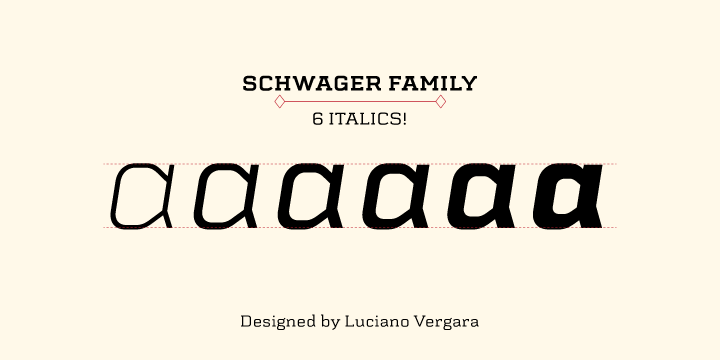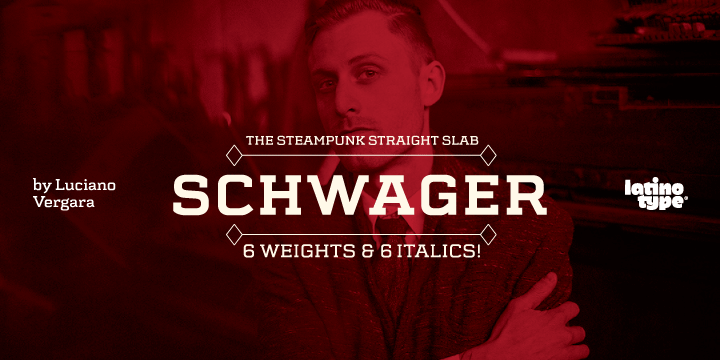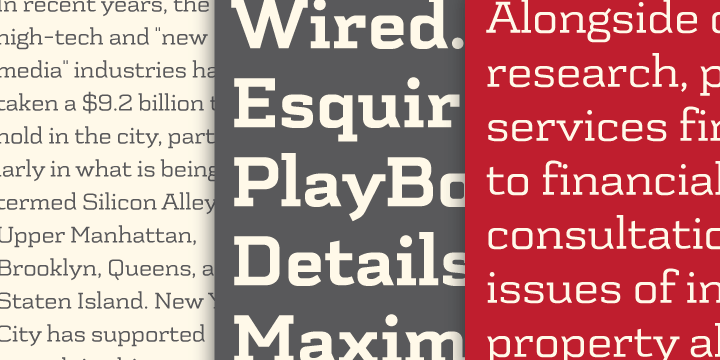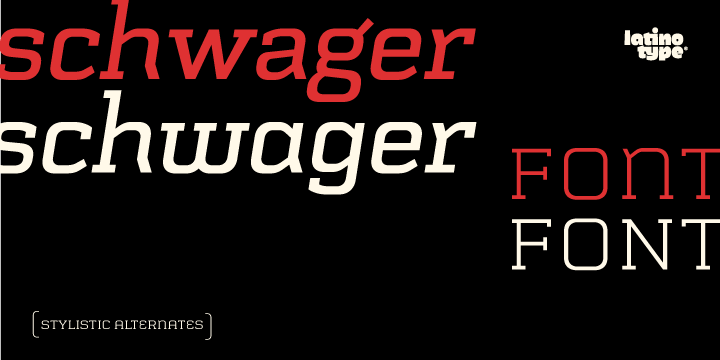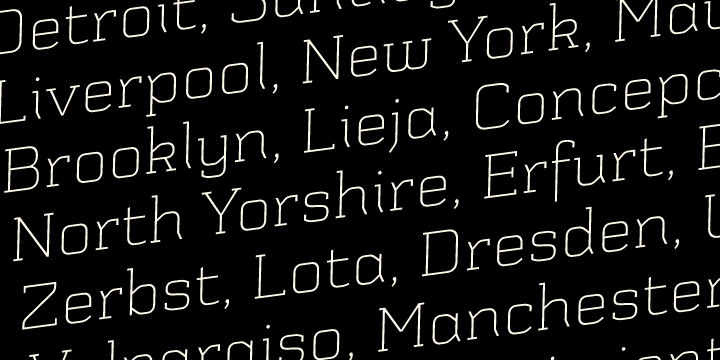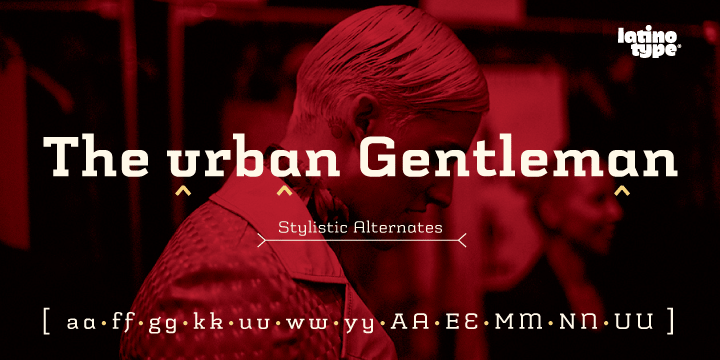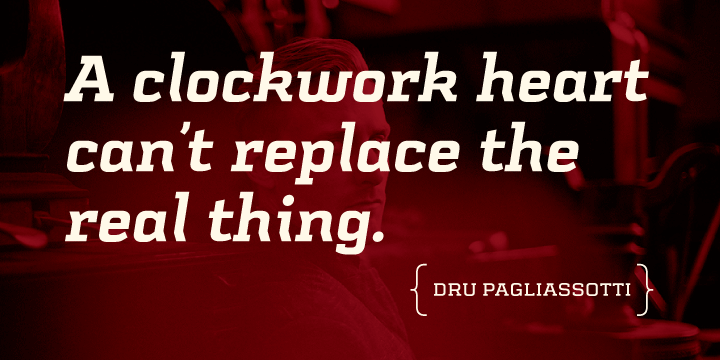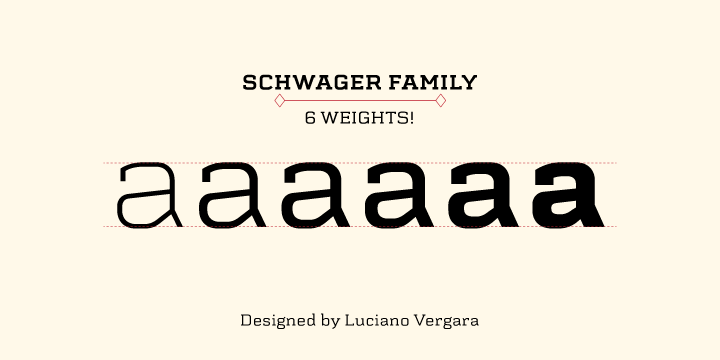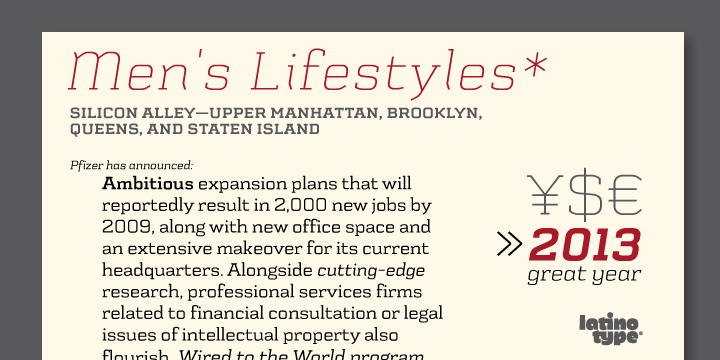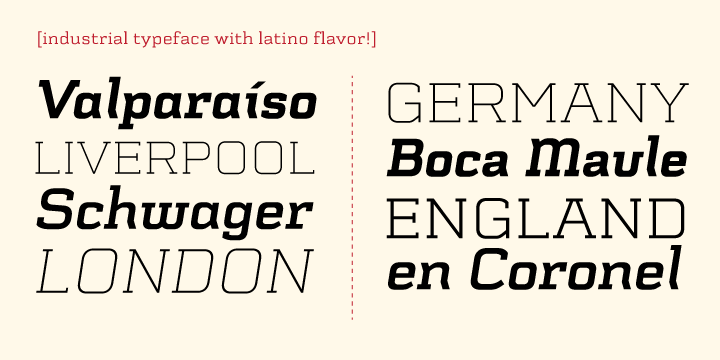
Schwager is a slab serif font family. This typeface has twelve styles and was published by Latinotype.
Schwager is a steampunk slab serif typeface with an industrial accent in a contemporary tone. Its strong structure and male, makes it ideal for titles, headlines and brands of male lifestyle, technology and trend. This typeface contains alternate glyphs that help to emphasize text or headlines.